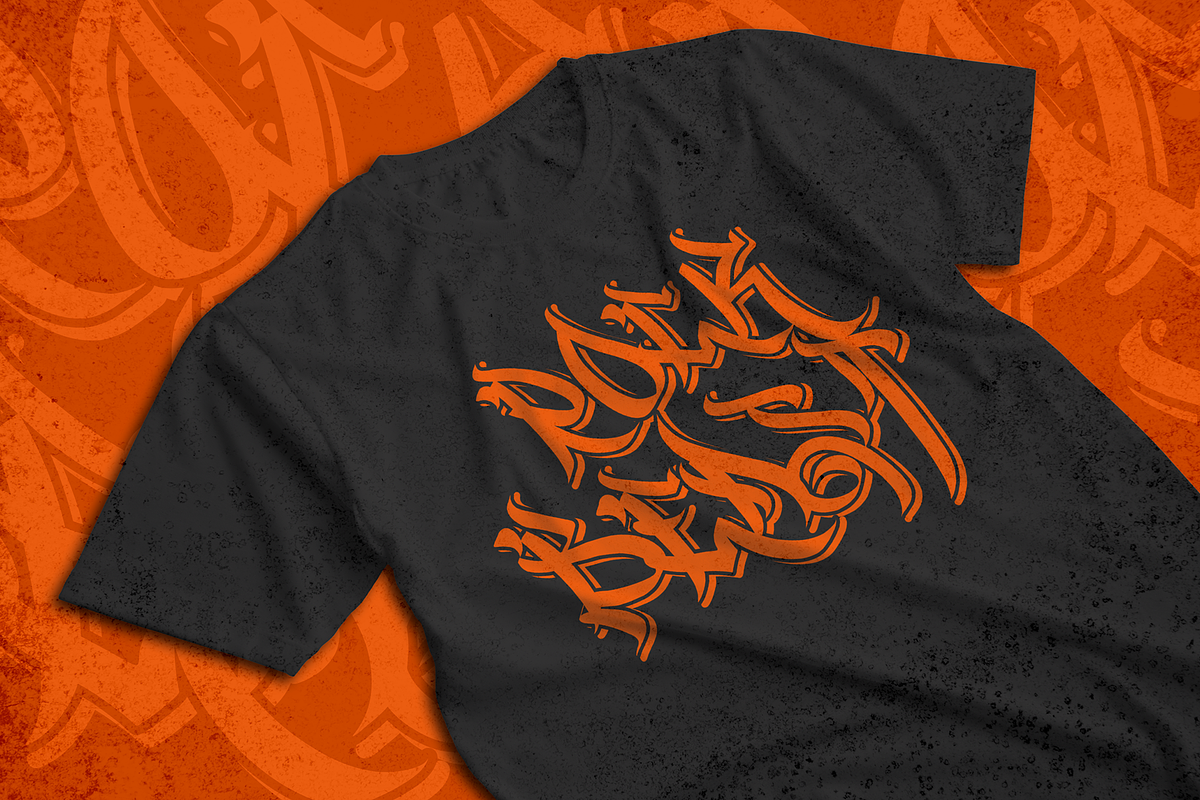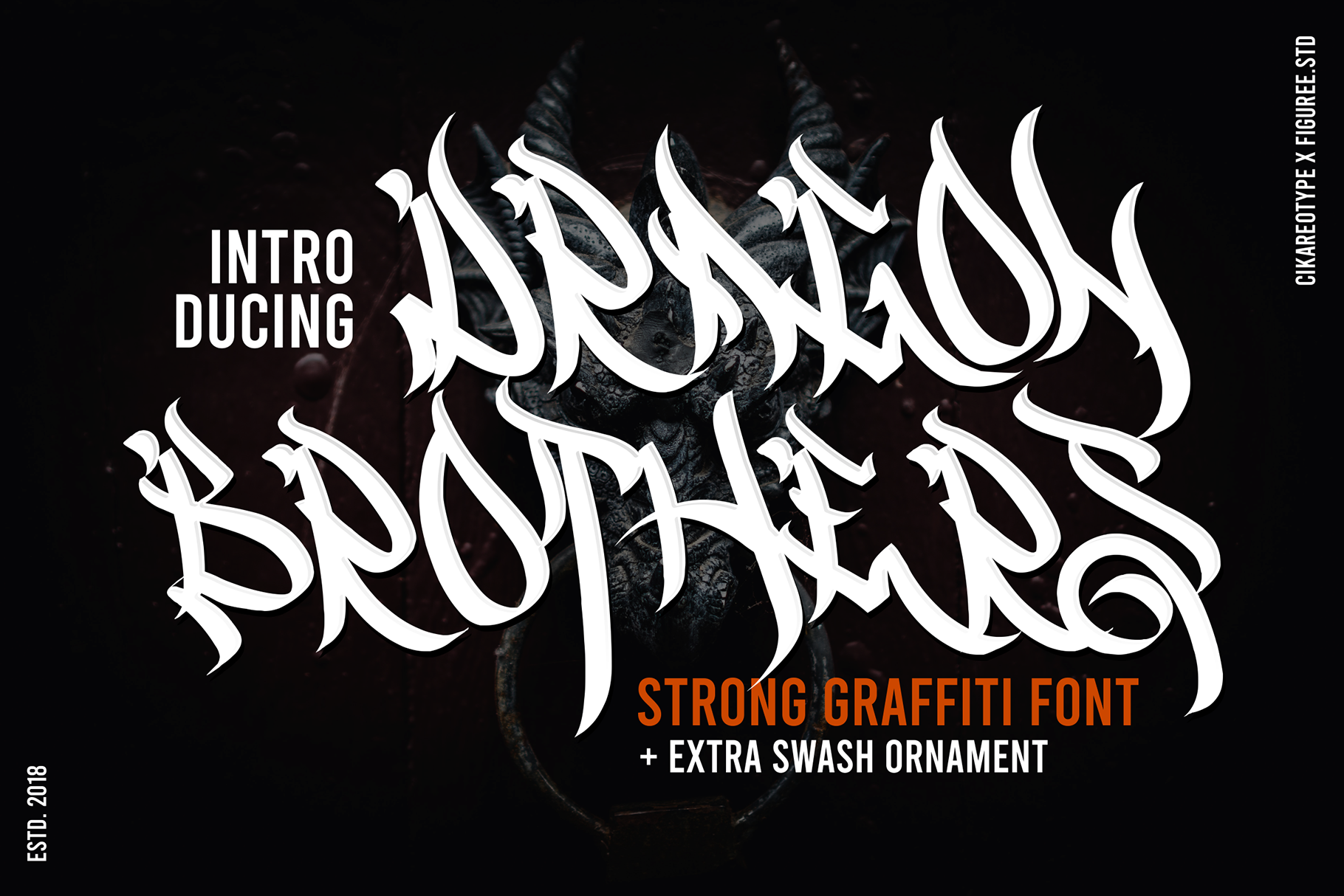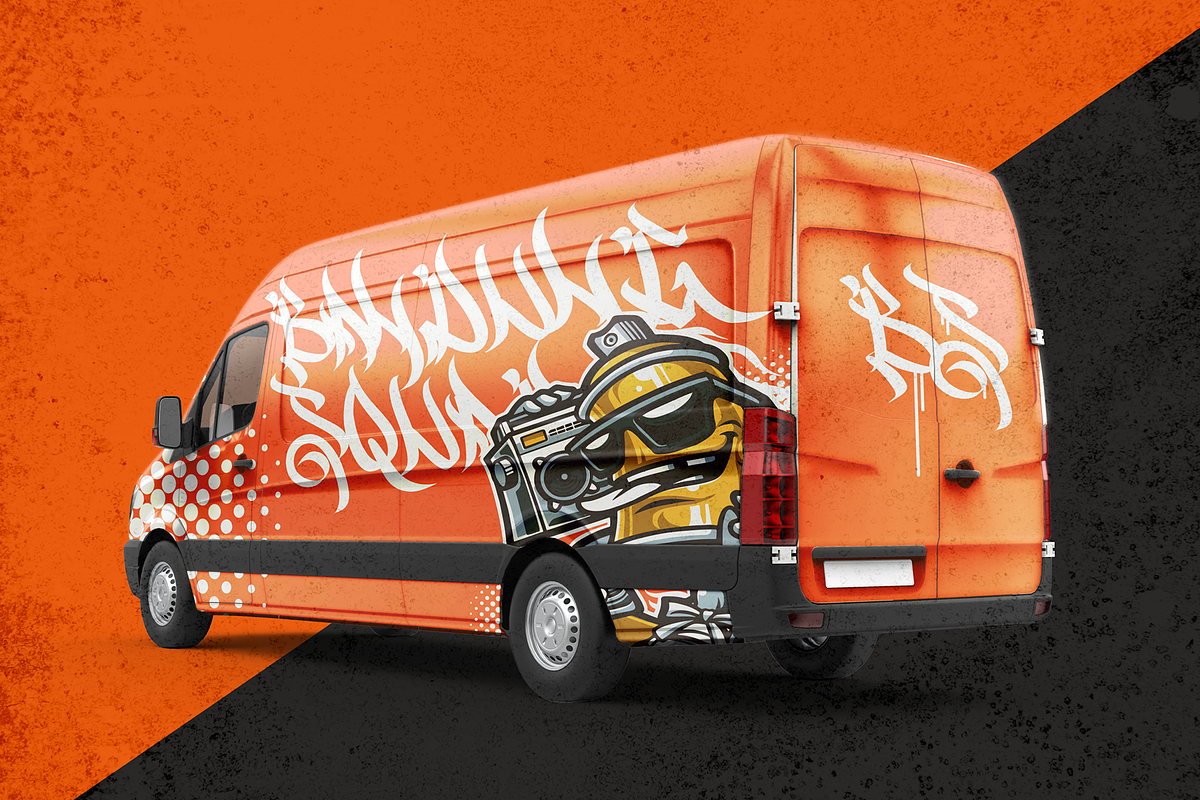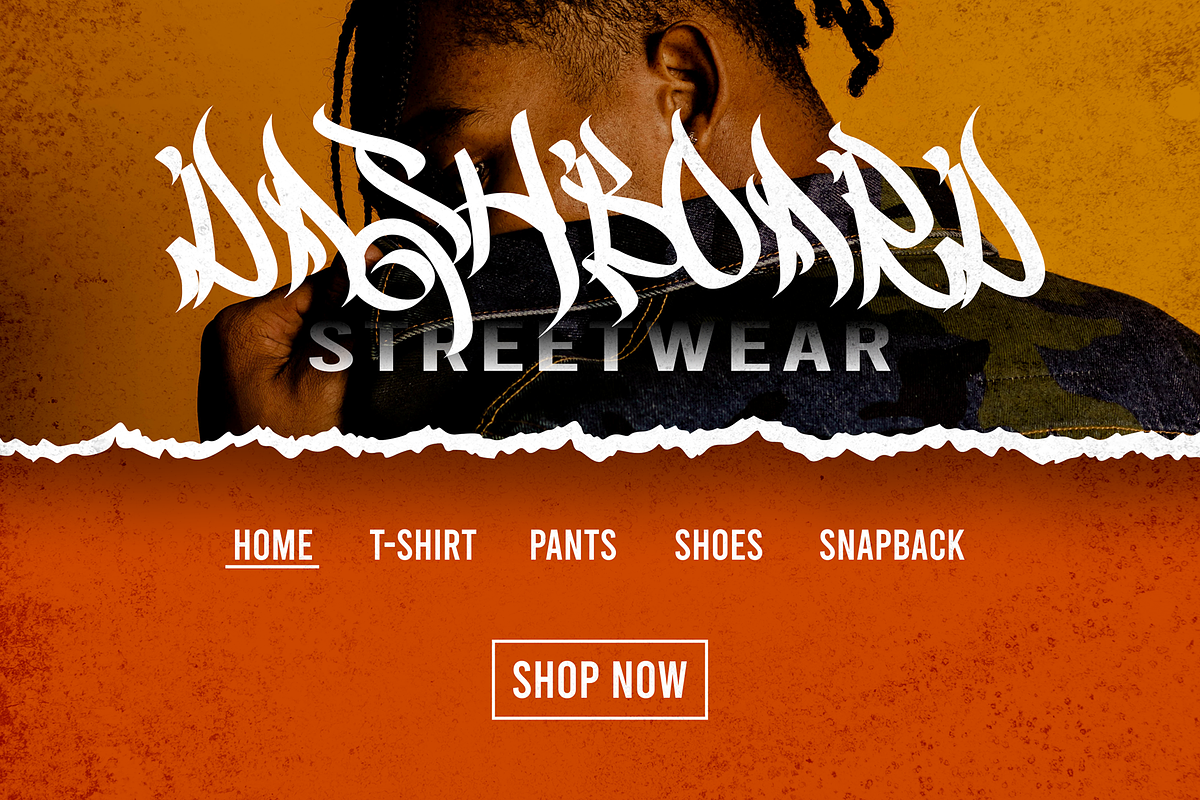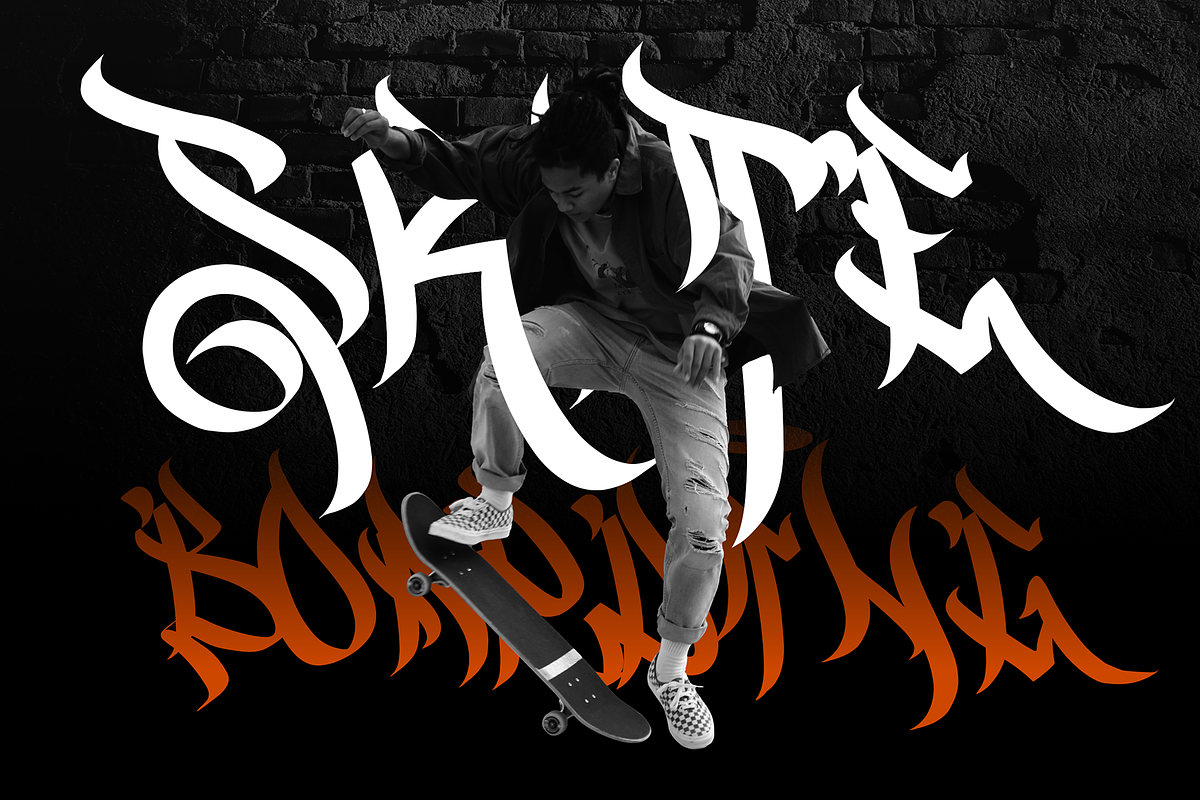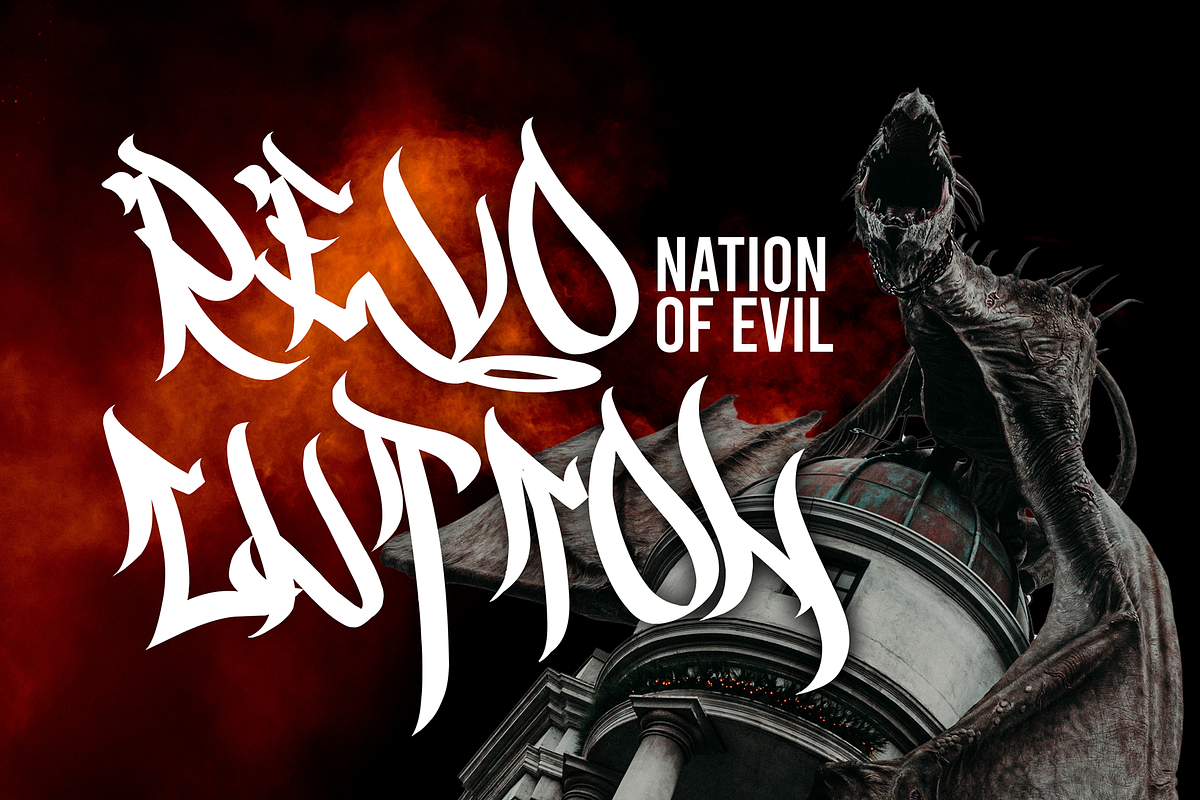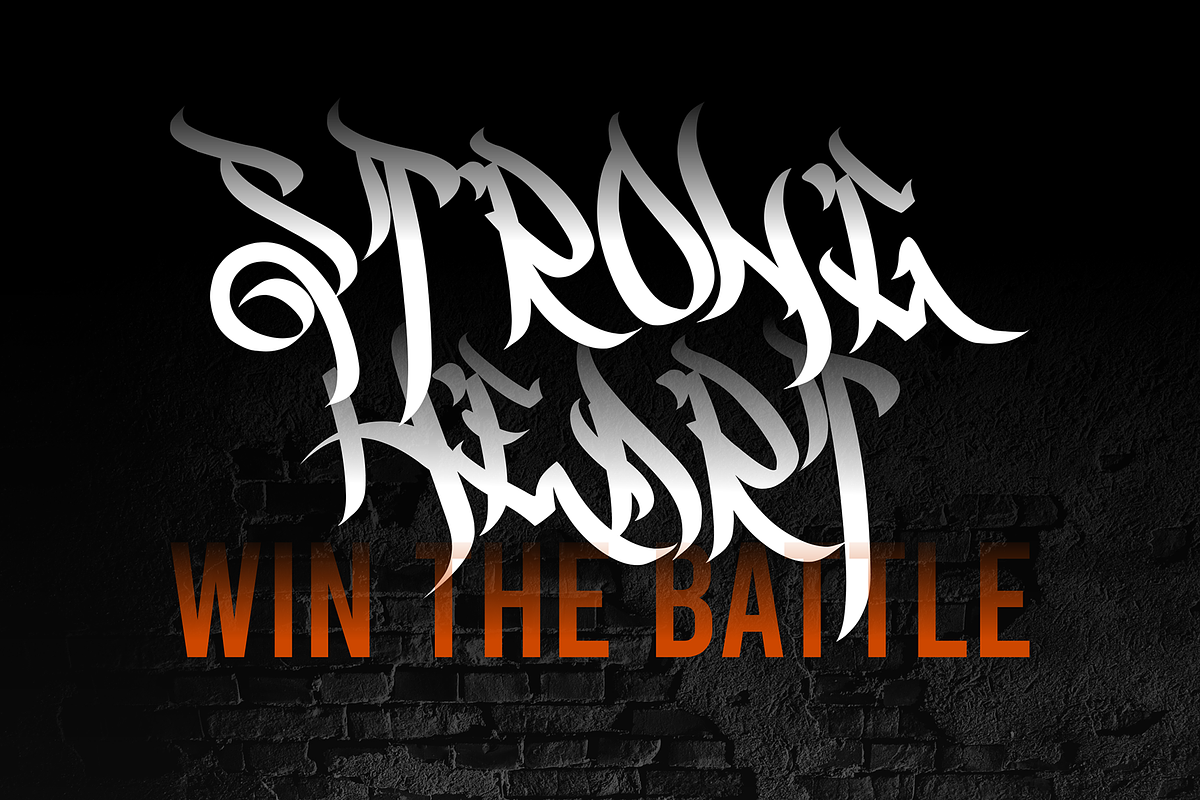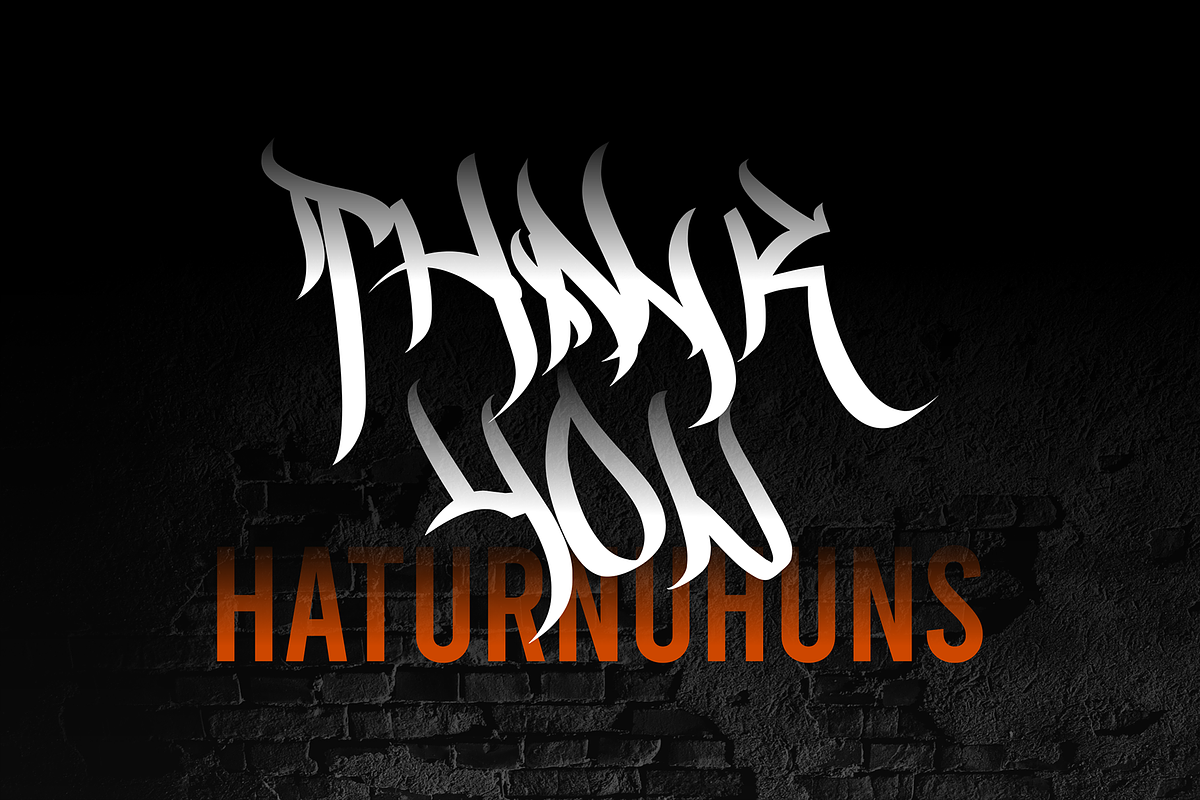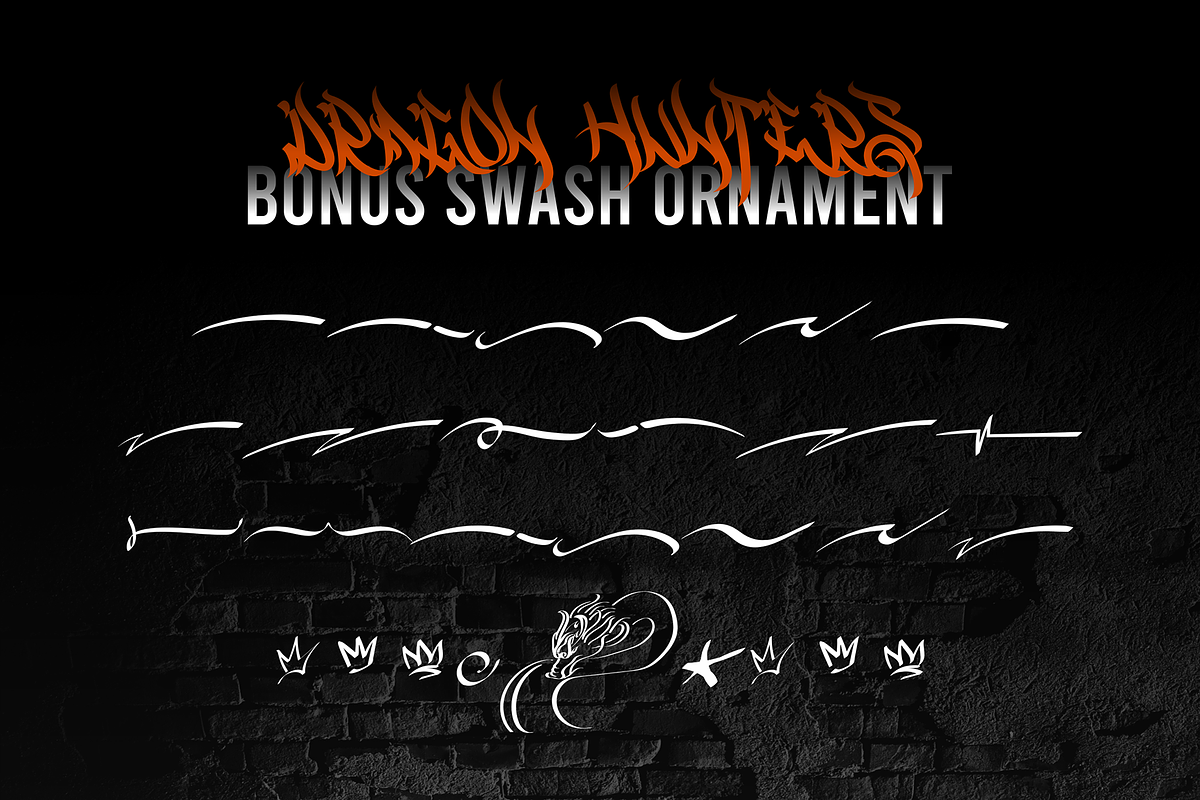
Dragon Brothers - Graffiti Font
Hello, this is Dragon Brothers - Realistic Graffiti Tag Font!
This font was designed so that users can use it more easily and make graffiti designs easier. Dragon Brothers are very suitable for use in various media such as; packaging, logos, labels, posters, shirt designs, bulletins, typography, and many other media, especially with graffiti look.
- Bonus Swash